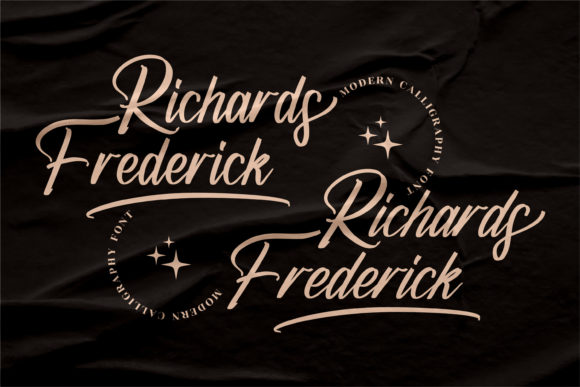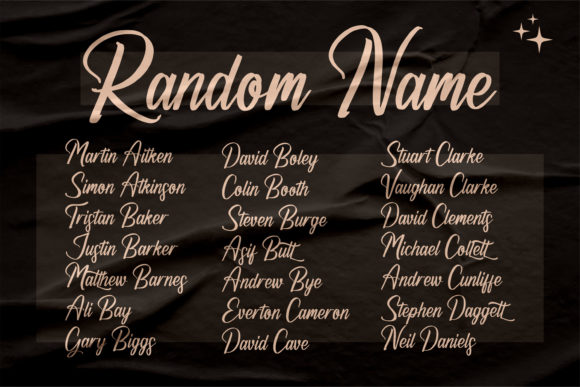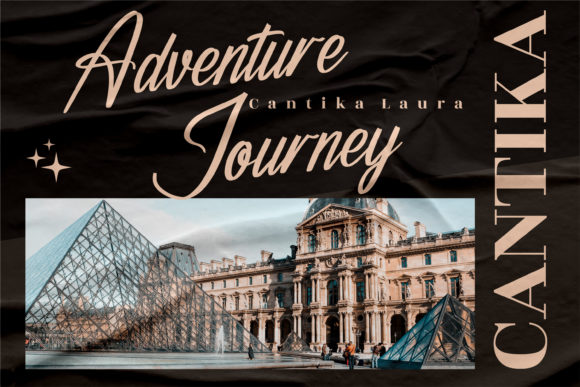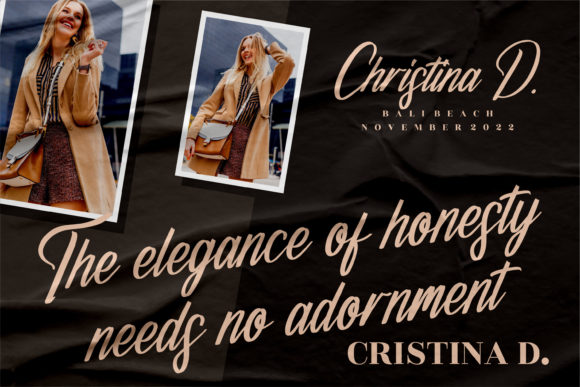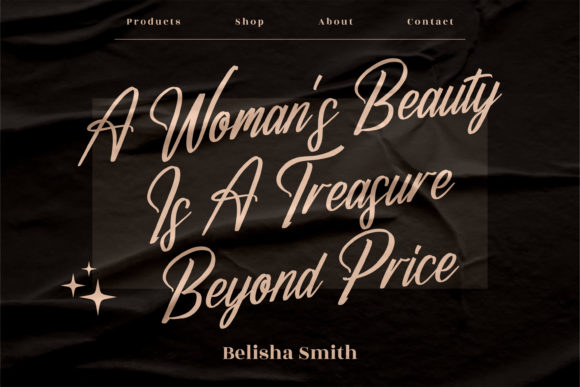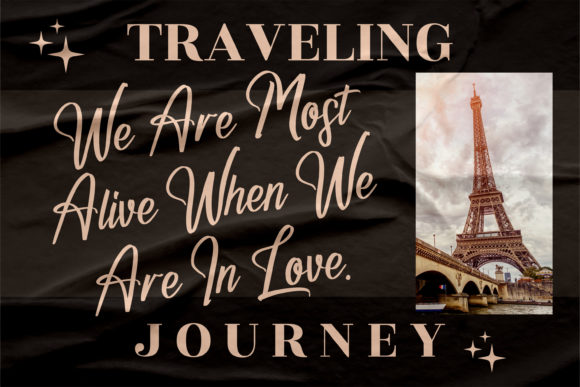
Introduction to Richards Frederick Font
Richards Frederick is a lovely script font featuring charming, playful characters that seem to dance along the baseline.
This font is PUA encoded which means you can access all of the amazing glyphs and ligatures with ease .
Key Features of Richards Frederick Font